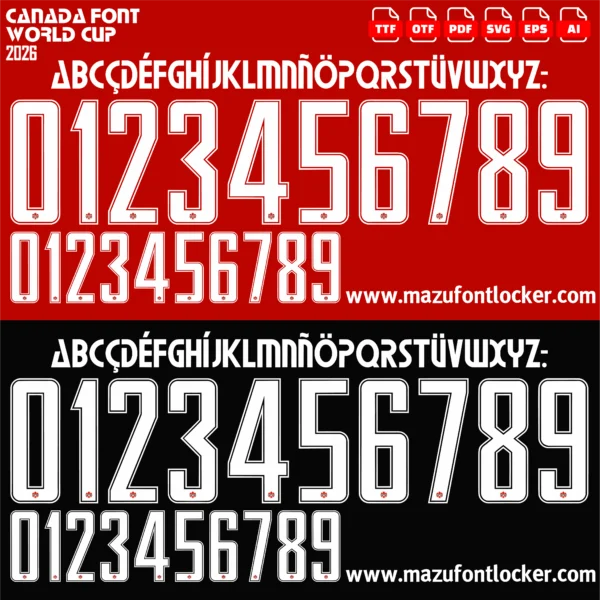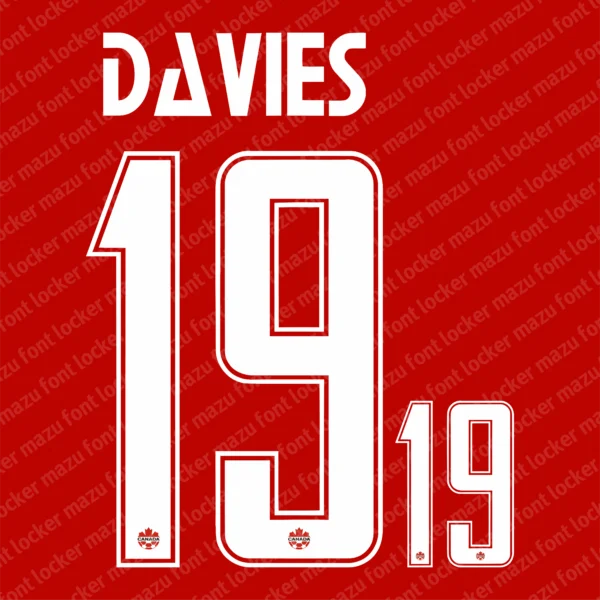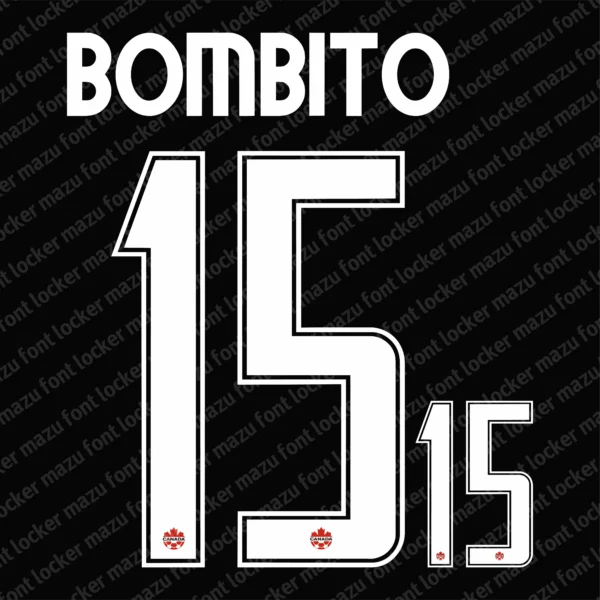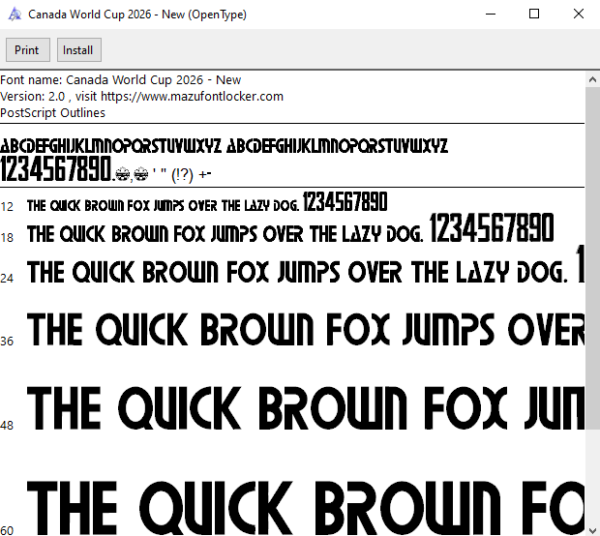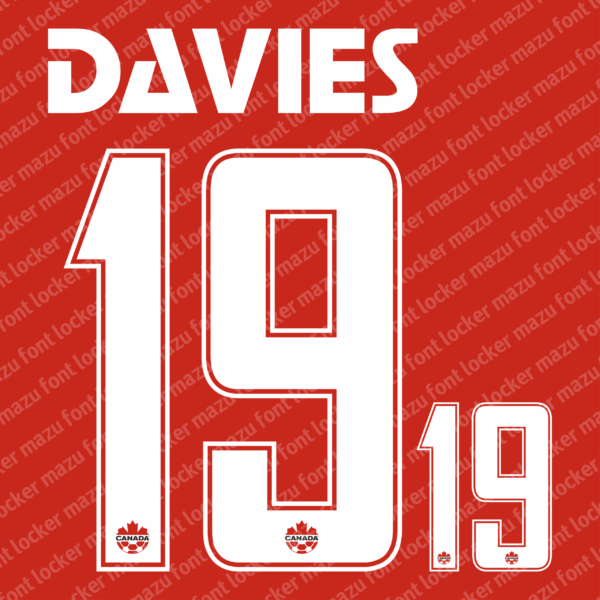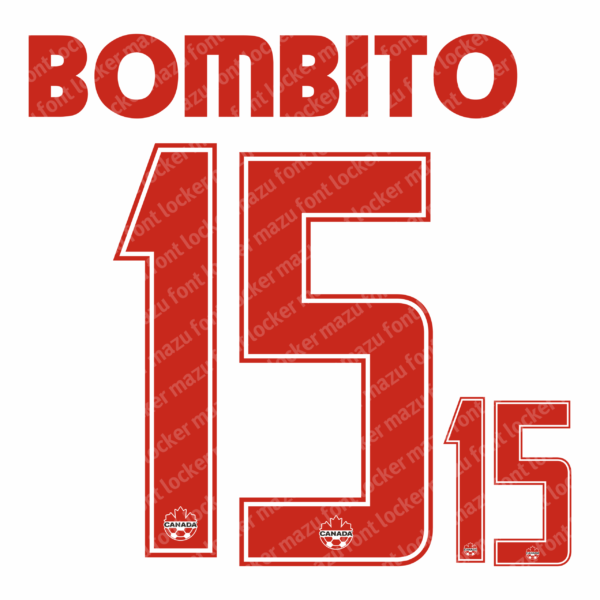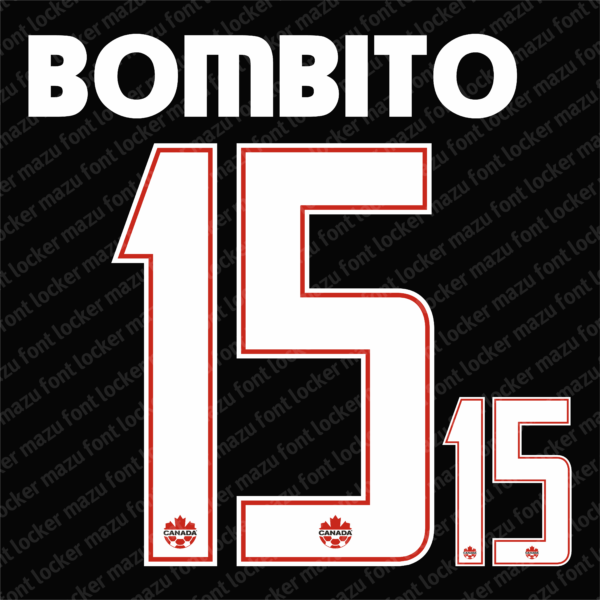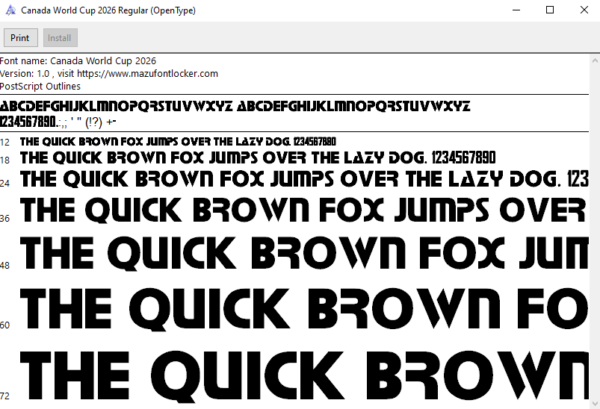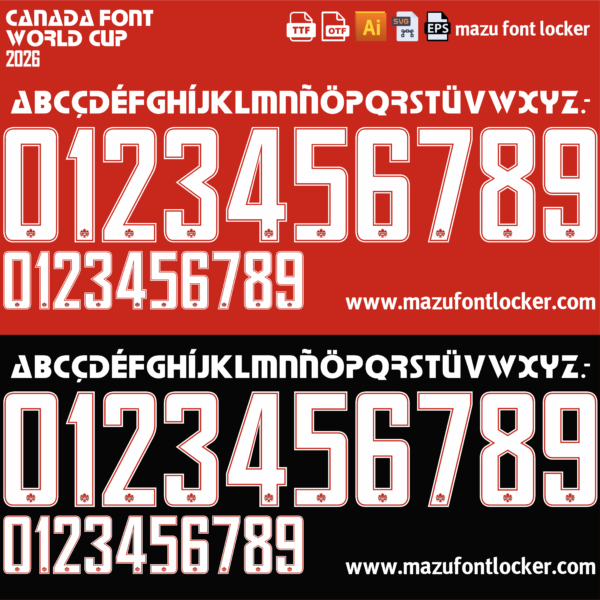
Canada World Cup 2026 Font Vector – Epic Maple Leaf Warriors Masterpiece
This font delivers the commanding, tournament-grade lettering that captures Canada’s modern football identity, rising international dominance, and elite competitive intensity — perfect for professional jersey mockups, dynamic World Cup graphics, premium sports branding, and high-end fan creations.
Canada World Cup 2026 Font Vector – Iconic Maple Leaf Matchday Typeface
The Canada World Cup 2026 Font Vector is a premium typeface that accurately recreates the distinctive match lettering inspired by the Canadian national football team during the FIFA World Cup 2026. This high-quality vector font kit captures the bold, modern, and instantly recognizable typography that perfectly complements Canada’s iconic red and white identity as they compete on football’s biggest stage.
Designed for professional designers, football enthusiasts, jersey collectors, and passionate Canada supporters, the Canada World Cup 2026 Font Vector delivers exceptional authenticity for creating realistic jersey mockups, football merchandise, social media graphics, match posters, squad designs, and custom fan artwork. Every character has been carefully recreated to reflect the clean, confident, and contemporary visual style associated with Canada’s historic FIFA World Cup 2026 campaign.
This font stands out thanks to its precise vector construction and authentic tournament-inspired styling. Every letter and numeral has been meticulously recreated to match the distinctive football lettering aesthetic associated with Canada’s FIFA World Cup 2026 kit.
Whether you’re producing professional football kit templates, custom jersey concepts, or eye-catching football content, the Canada World Cup 2026 Font Vector delivers a genuine match-ready appearance inspired by the pride, determination, and growing international reputation of Canadian football.
The lettering featured in the Canada World Cup 2026 Font Vector combines sharp geometric lines with balanced modern proportions. The result is a premium and highly readable typeface that reflects Canada’s bold football identity, national pride, iconic maple leaf symbolism, and ambitious new generation of players competing on the world stage.
The numerals feature clean curves, bold edges, and consistent spacing for maximum readability on football jerseys and digital media. Built entirely as scalable vectors, every number remains crisp and clear for jersey customization, posters, banners, print projects, social media graphics, and high-resolution football artwork.
- Complete uppercase A–Z alphabet and numbers 0–9 in authentic Canada World Cup 2026 inspired style
- Special Canada Maple Leaf badge glyph – Press the “:” (Colon) key to insert the maple leaf emblem
Wearing their iconic red and white colours, Canada continues to build a reputation as one of CONCACAF’s rising football powers. The Canada World Cup 2026 Font Vector is inspired by the distinctive match typography and visual identity associated with Canada’s World Cup campaign, making it an excellent choice for designers creating custom jersey concepts, football posters, squad graphics, matchday artwork, and fan-made projects.
The Canada World Cup 2026 Font Vector is an independently designed typeface package inspired by the official shirt lettering and visual identity associated with the Canadian men’s national football team during the FIFA World Cup 2026. It has been carefully recreated for football enthusiasts, graphic designers, collectors, jersey creators, and fans producing custom football concepts, digital artwork, and fan-made projects.